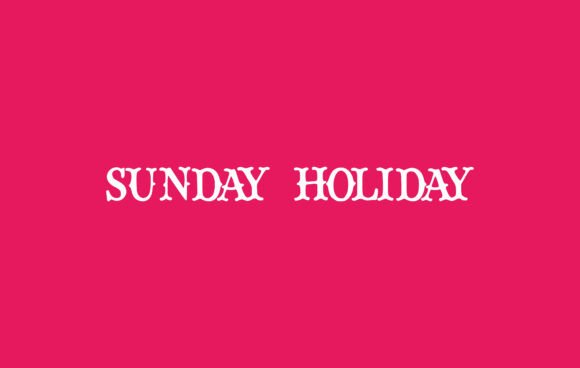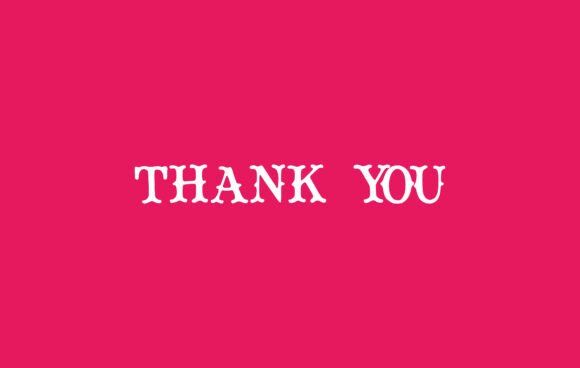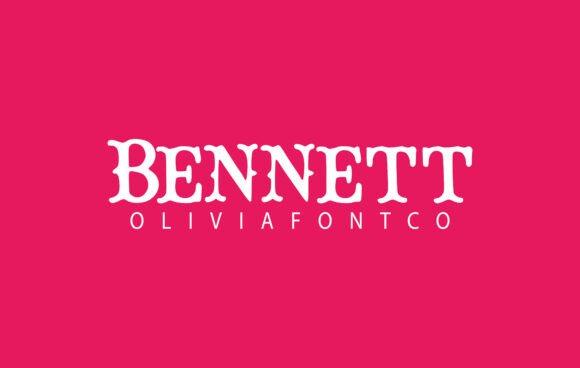
Discover the Charm of Bennett Font: A Romantic Slab Serif for Creative Projects
In the world of typography, fonts play a crucial role in bringing creative ideas to life. Among the numerous fonts available, Bennett Font stands out as a unique and authentic slab serif font with a romantic touch. Designed to capture the hearts of designers and crafters, Bennett Font is an excellent choice for those seeking a legible and visually appealing font for their projects.
The Characteristics of Bennett Font
Bennett Font boasts a distinctive slab serif design, which sets it apart from other fonts. Its authentic and classic look makes it perfect for a wide range of creative projects, from magazine headlines to wedding invitations. The font’s romantic touch adds a touch of elegance, making it an ideal choice for designs that require a sense of sophistication.
One of the key features of Bennett Font is its exceptional legibility. Whether used as a title or body text, this font is easy to read and understand, making it perfect for designs that require a clear and concise message. Its versatility is another significant advantage, as it can be used for various design projects, including social media graphics, branding materials, and cards.
Why Choose Bennett Font for Your Creative Projects?
Bennett Font offers several benefits that make it an attractive choice for designers and crafters. Some of the reasons to choose Bennett Font include:
- Legibility: Bennett Font is designed to be easy to read, making it perfect for body text and titles.
- Versatility: This font can be used for a wide range of creative projects, from magazine headlines to wedding invitations.
- Romantic touch: Bennett Font’s romantic touch adds a sense of elegance and sophistication to designs.
- Authentic design: The font’s authentic slab serif design makes it stand out from other fonts.
Creative Projects that Bennett Font is Perfect For
Bennett Font’s versatility makes it suitable for various creative projects. Some of the projects that this font is perfect for include:
- Magazine headlines: Bennett Font’s bold and elegant design makes it ideal for magazine headlines.
- Social media graphics: The font’s legibility and romantic touch make it perfect for social media graphics, such as Facebook posts and Instagram captions.
- Branding materials: Bennett Font can be used for branding materials, such as logos, business cards, and letterheads.
- Wedding invitations: The font’s romantic touch makes it perfect for wedding invitations, save-the-date cards, and other wedding-related designs.
- Cards and stationery: Bennett Font can be used for designing cards, such as greeting cards, birthday cards, and thank-you cards.
Tips for Using Bennett Font Effectively
To get the most out of Bennett Font, here are some tips for using it effectively:
- Use it as a title font: Bennett Font’s bold design makes it perfect for titles and headings.
- Pair it with other fonts: Experiment with pairing Bennett Font with other fonts to create a unique and visually appealing design.
- Adjust the font size: Adjust the font size to suit the design and ensure that it is legible.
- Use it consistently: Use Bennett Font consistently throughout a design to create a cohesive look.
In conclusion, Bennett Font is an excellent choice for designers and crafters seeking a unique and authentic slab serif font with a romantic touch. Its exceptional legibility, versatility, and elegant design make it perfect for a wide range of creative projects. By following the tips outlined above, designers can use Bennett Font effectively and create stunning designs that capture the hearts of their audience.